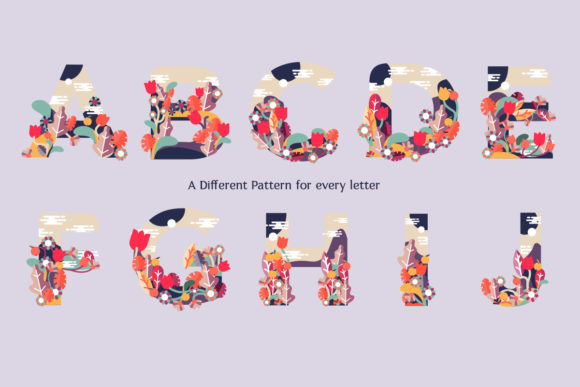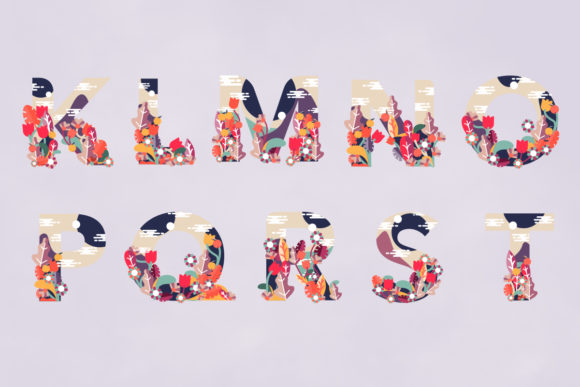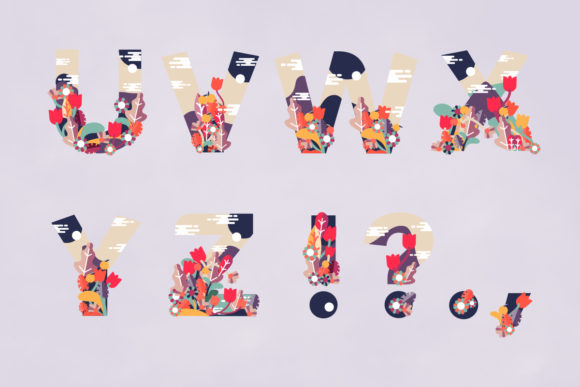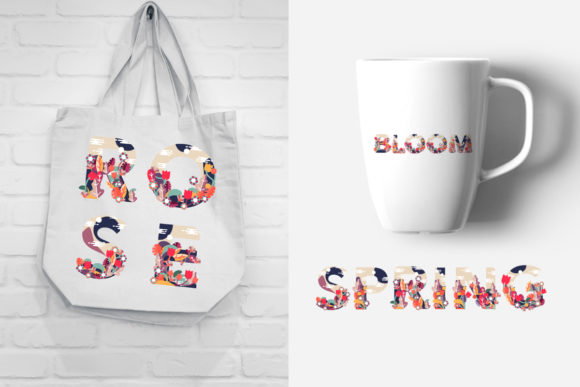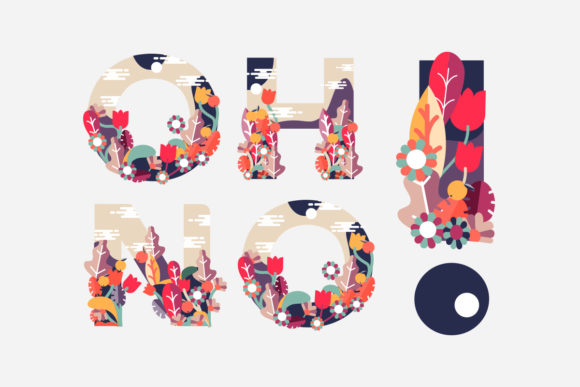
Introducing Floret Font: Elevate Your Summer Projects with Vibrant Colors
Are you tired of using the same old fonts for your summer projects? Look no further! Floret Font is here to revolutionize the way you add color and creativity to your designs. This spectacular color font is unbelievably unique and will turn your summer projects into pure works of art.
What is Floret Font?
Floret Font is a one-of-a-kind color font that combines stunning visuals with versatility. Unlike traditional fonts, Floret Font features intricate designs and patterns that are woven together to create a mesmerizing effect. Each letter, number, and symbol is carefully crafted to showcase a kaleidoscope of colors, making it perfect for designers and crafters looking to add a pop of color to their work.
Unleash Your Creativity with Floret Font
Floret Font is more than just a font – it’s an artistic tool that allows you to express your creativity like never before. Whether you’re working on a summer-themed project, a branding campaign, or simply want to add some personality to your social media posts, Floret Font is the perfect choice. Its unique color palette and design make it ideal for:
- Summer-themed projects, such as beach posters, summer camp invitations, or ice cream shop menus
- Branding and packaging designs that require a bold and eye-catching font
- Social media posts and stories that need a splash of color and creativity
- DIY crafts, such as card making, scrapbooking, or iron-on designs
Key Features of Floret Font
So, what makes Floret Font so special? Here are some of its key features:
- Unique Color Palette: Floret Font boasts a stunning color palette that’s perfect for summer projects. The font features a range of bright, bold colors that will add a pop of color to any design.
- Intricate Designs: Each letter, number, and symbol in Floret Font is carefully crafted with intricate designs and patterns that create a mesmerizing effect.
- Multilingual Support: Floret Font supports multiple languages, making it a great choice for designers and crafters who work with international clients or want to create multilingual content.
- Easily Customizable: Floret Font is easy to customize, allowing you to adjust the color palette, font size, and style to fit your design needs.
How to Use Floret Font in Your Projects
Using Floret Font in your projects is easy! Here are some tips to get you started:
- Pair it with a Neutral Background: Floret Font works best when paired with a neutral background that allows the font’s colors to shine.
- Experiment with Different Colors: Don’t be afraid to experiment with different color palettes and combinations to create a unique look.
- Use it for Headings and Titles: Floret Font is perfect for headings and titles, adding a touch of elegance and sophistication to your designs.
- Mix it with Other Fonts: Floret Font can be paired with other fonts to create a unique and visually appealing design.
Get Ready to Elevate Your Designs with Floret Font
Floret Font is a game-changer for designers and crafters looking to add a touch of color and creativity to their summer projects. With its unique color palette, intricate designs, and multilingual support, this font is sure to become a favorite in your design arsenal. So why wait? Download Floret Font today and get ready to elevate your designs to the next level!